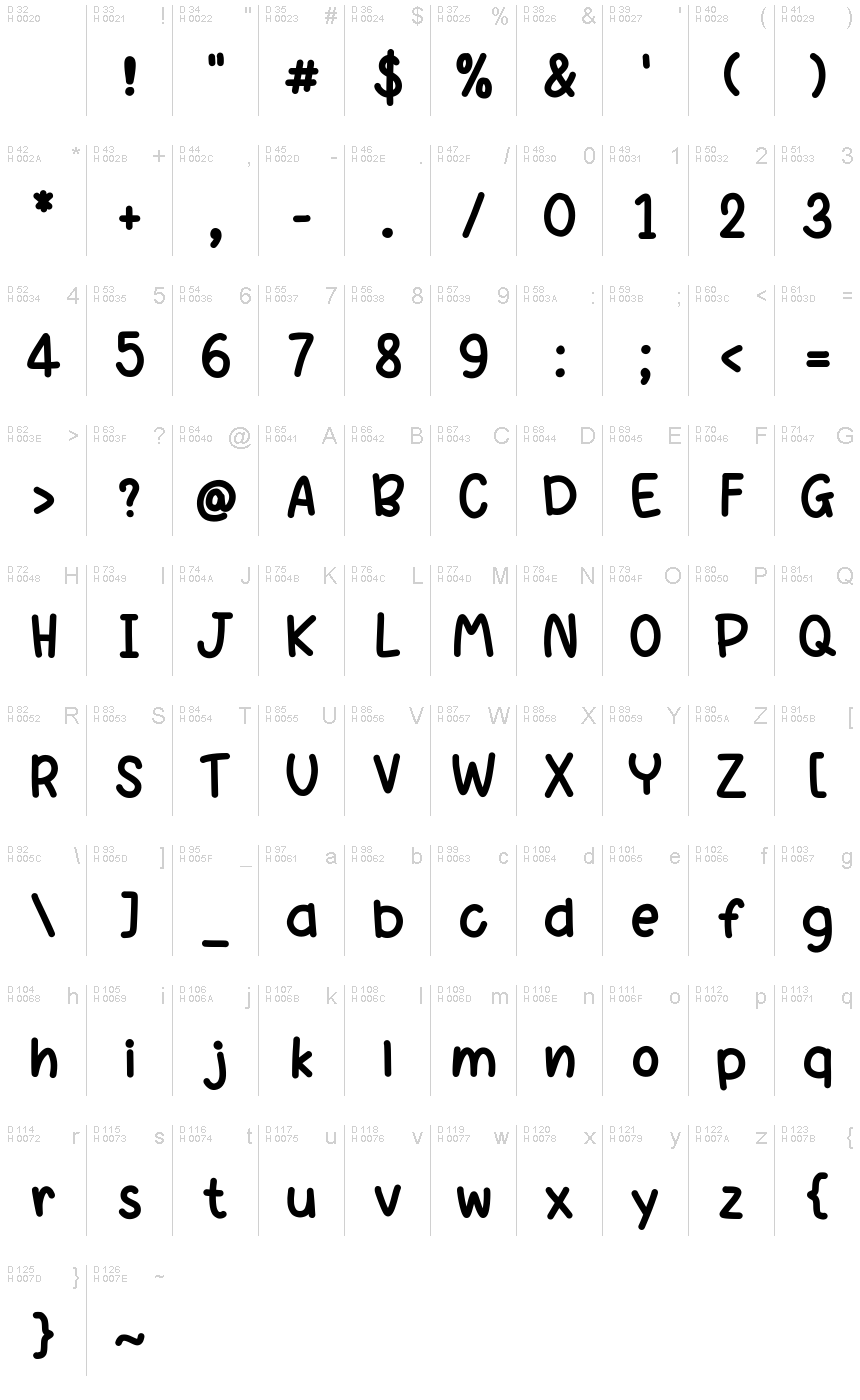
Mini doggy Regular
Mini Doggy font, crafted by SddStudio1988, radiates a playful and whimsical charm with its handwritten style. This font beckons with a delightful character, offering an engaging blend of warmth and creativity. Its rounded forms and expressive strokes create a sense of approachability, making it perfect for casual designs.
Visually striking with its light tone, Mini Doggy stands out in both print and digital media. Ideal for children’s books, playful branding, or vibrant event invitations, this font enhances any project with a touch of personality. Whether used for headlines or decorative text, it captures attention effortlessly while evoking feelings of joy and spontaneity. Embracing the spirit of fun, Mini Doggy is truly versatile across various design contexts where playfulness is key.